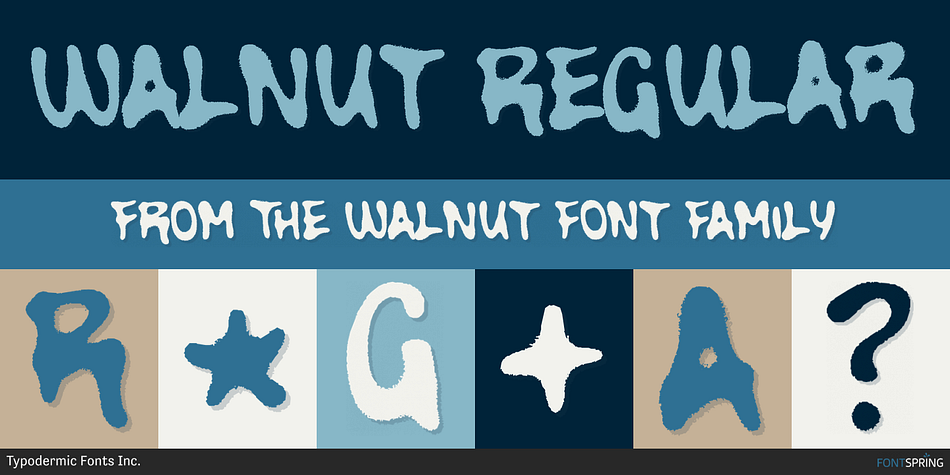
WALNUT REGULAR
Walnut is a hand display font published by Typodermic Fonts Inc.
Introducing Walnut—the graffiti typeface that packs a punch! This font was not designed for the faint of heart. It’s tough, rugged and unapologetic. Walnut’s gritty spray-painted look will add a raw edge to your designs that will have people taking notice.
With its realistic style, Walnut looks like it just sprang off the wall, ready to wreak havoc on the unsuspecting public. It’s the perfect typeface for any design project that requires a touch of vandalism. From posters to album covers, Walnut will give your work that extra edge that will make it stand out from the crowd.
But what really sets Walnut apart are its unique combos. With OpenType ligatures support, Walnut will create custom letter combinations that will appear like they were created on the fly with a can of spray paint. Each character has a distinct personality, making this font perfect for creating custom logos or headlines that demand attention.
So why settle for a boring, predictable typeface when you can unleash the power of Walnut? It’s time to take your designs to the next level and make a statement with this tough and gritty typeface. Get ready to make some noise with Walnut!